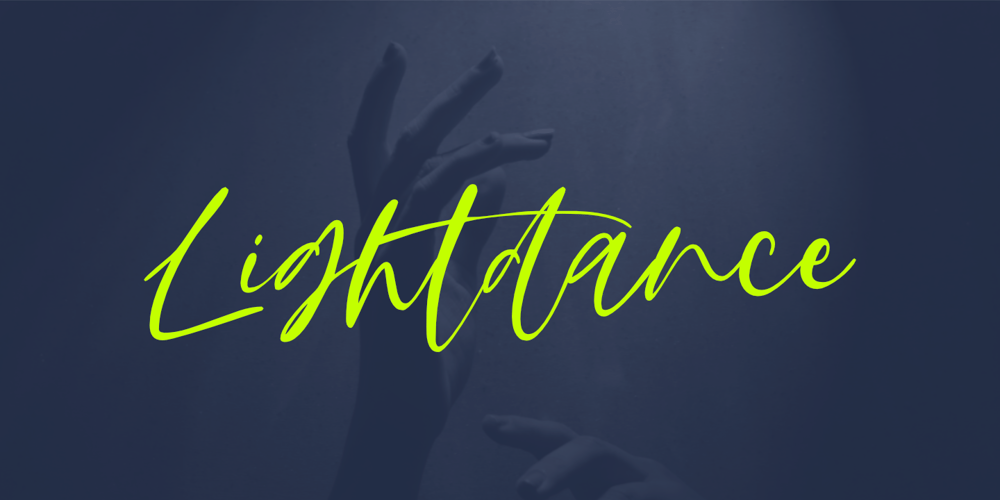
Light Dance Font Family was designed by Aldy Sidik and published by Epiclinez. Light Dance contains 1 styles and family package options. Light Dance is a stylish and elegant signature script font. It is a nice choice for creating eye-catching logos, branding, and quotes. The font Light Dance contains 214 glyphs, supporting 66 languages, which include: Afrikaans Albanian Catalan Danish Dutch English Estonian Finnish French German Italian Norwegian Portuguese Spanish Swedish Zulu, and more.So what’s included: Basic Latin A-Z & a-z. Numbers, symbols, and punctuations. Ligatures. Multilingual Support. Accented Characters : ÀÁÂÃÄÅÆÇÈÉÊËÌÍÎÏÑÒÓÔÕÖØŒŠÙÚÛÜŸÝŽàáâãäåæçèéêëìíîïñòóôõöøœšùúûüýÿžß Thank You.